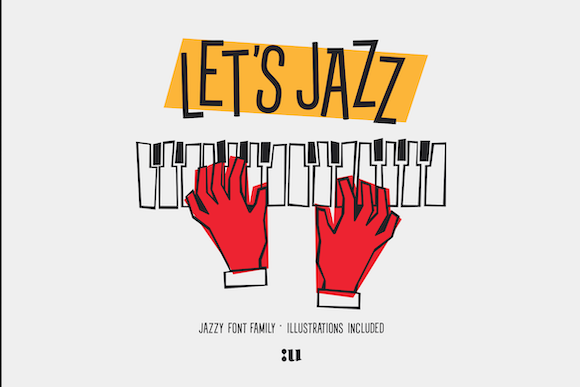
Get swept away by the captivating charm of Let's Jazz, a sans serif font that exudes a vivacious personality. Its playful spirit combined with its vintage undertones creates a font that is simply irresistible. Designed by the creative geniuses at unio.creativesolutions, this font is ready to sprinkle some rhythmic delight into your designs.
With its free-spirited nature, Let's Jazz is like a lively jazz melody that dances across your screen. Its alluring curves and stylish swashes add a touch of retro glamour, making it the perfect choice for projects that demand a dash of vintage charm. Whether it's a groovy poster, an eye-catching logo, or a whimsical invitation, Let's Jazz hits all the right notes.
Unleash your imagination and let the rhythm of Let's Jazz guide you towards creative wonders. Its versatility makes it the ideal companion for a diverse range of projects, from playful branding to retro-inspired social media graphics. Create designs that capture the essence of a bygone era, infused with a modern twist.
If you seek a font that sparks joy and brings a smile to your face, Let's Jazz is the answer. Its playful demeanor is contagious, inviting you to infuse your designs with a sense of fun and excitement. Step into the world of Let's Jazz and let your creativity flourish with boundless possibilities.